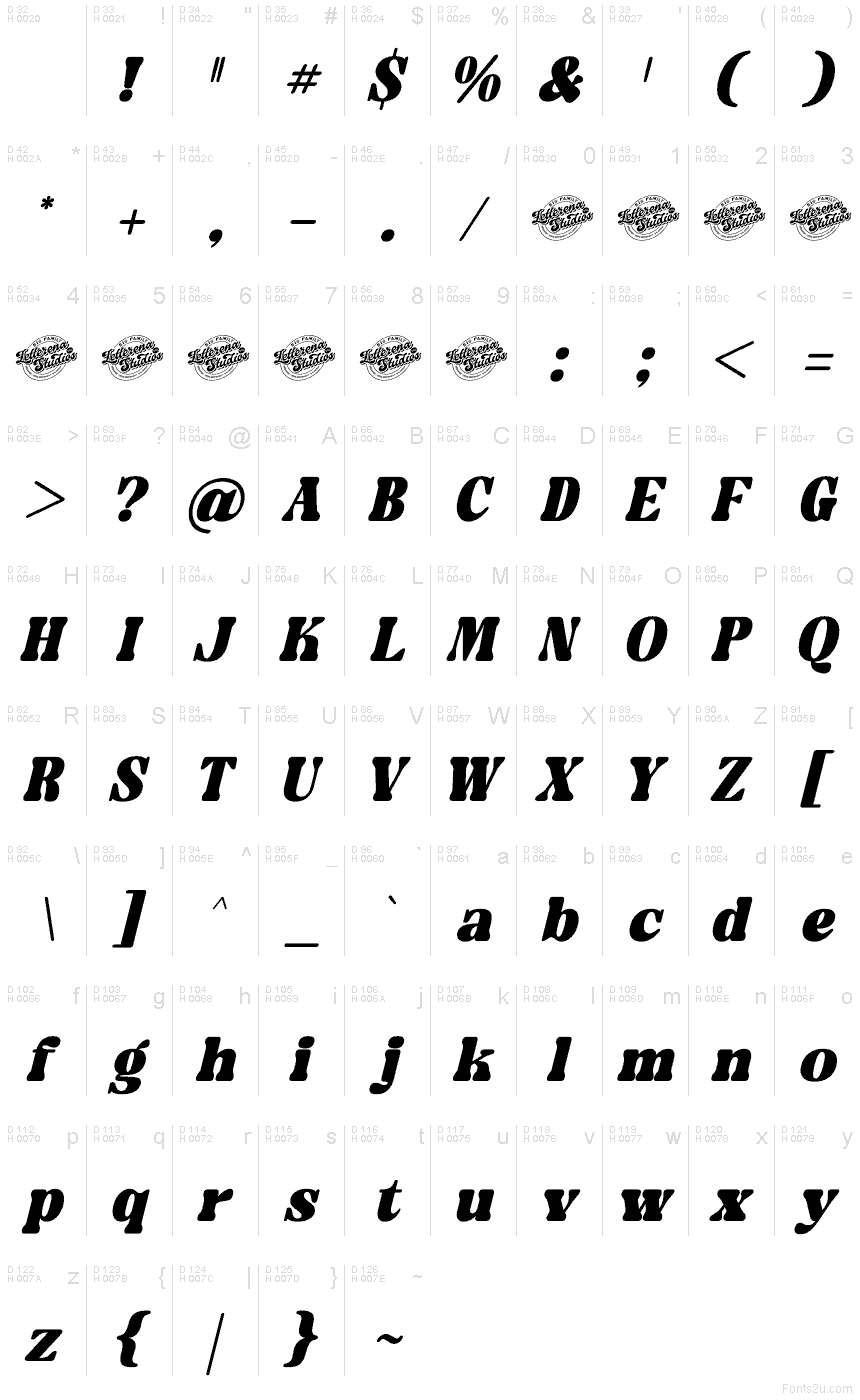
Midnight Gelactic DEMO VERSION Italic
Midnight Gelactic Italic font by Letterena Studios is a free bold retro italic display font. It leans hard into a juicy, inky slant, with thick brushy strokes that swell and taper like a vintage signwriter’s hand. The rhythm is tight and punchy, so words lock together with that swooshy, late‑night marquee energy—slick curves, soft edges, and confident weight that reads fast and loud.
Using Midnight Gelactic Italic, headlines snap to attention on vintage posters, beverage labels, boutique logos, bar menus, podcast covers, and apparel prints. The dense contrast gives short phrases a creamy, high-impact texture while staying legible at smaller display sizes. For an easy pairing, set body copy in a light, neutral sans and let the Midnight Gelactic family carry the headline swagger. This free font shines when you keep text brief and oversized.